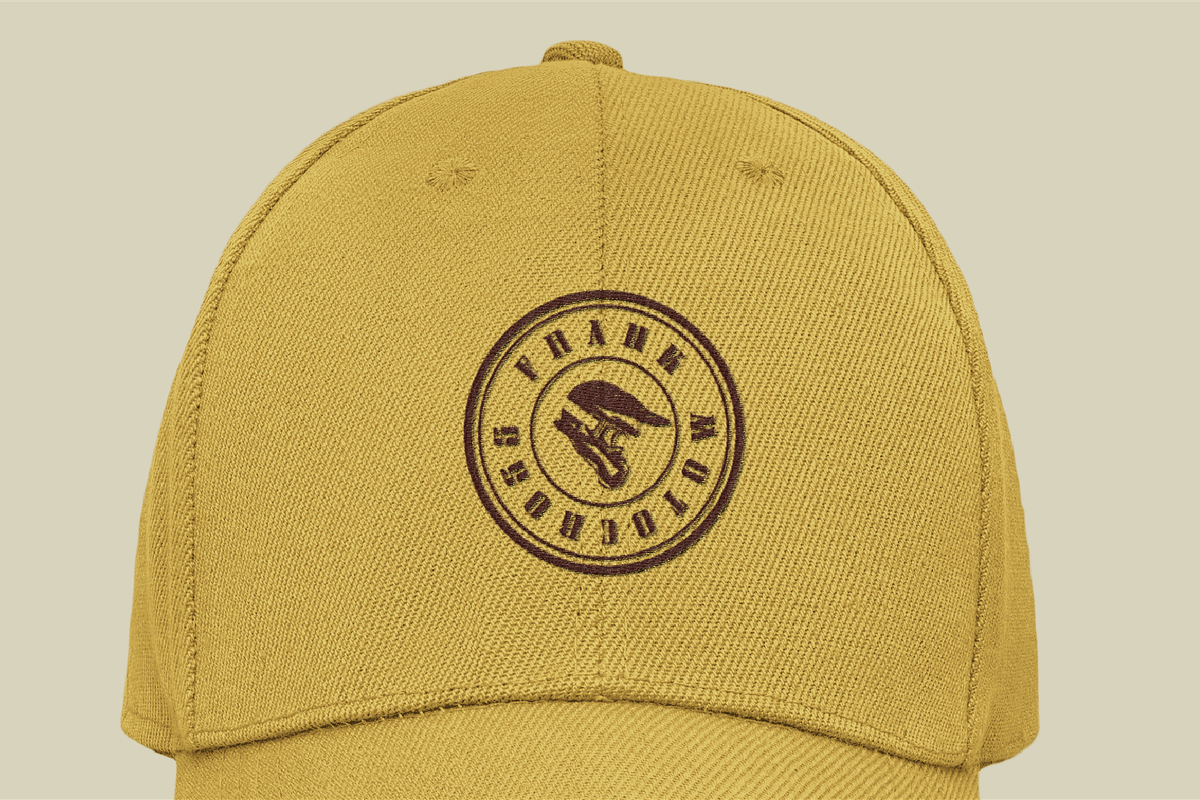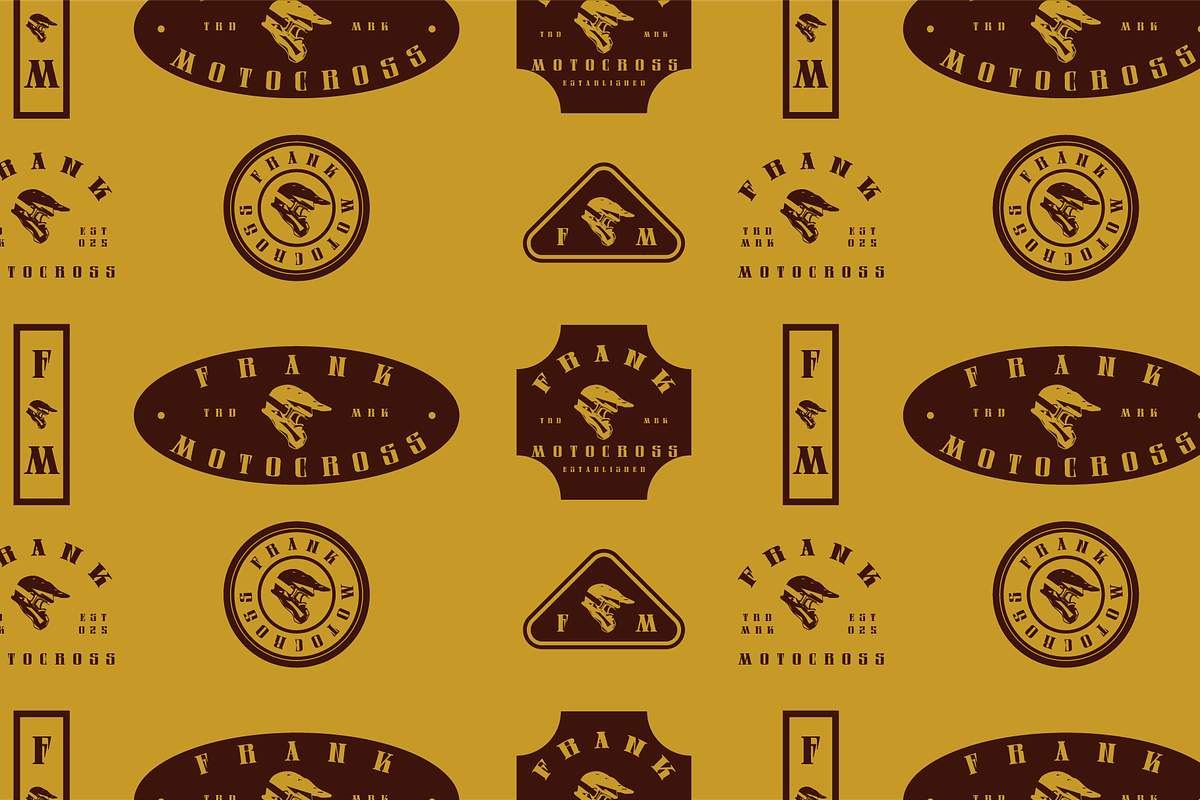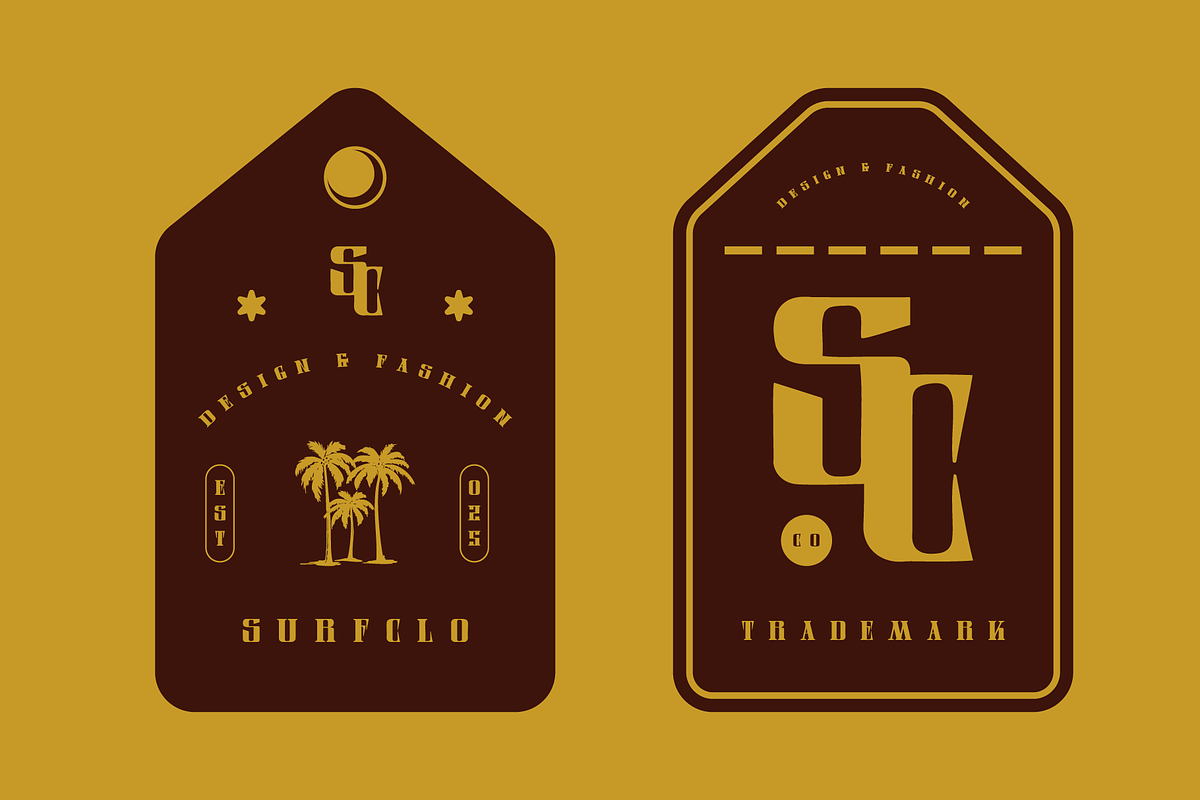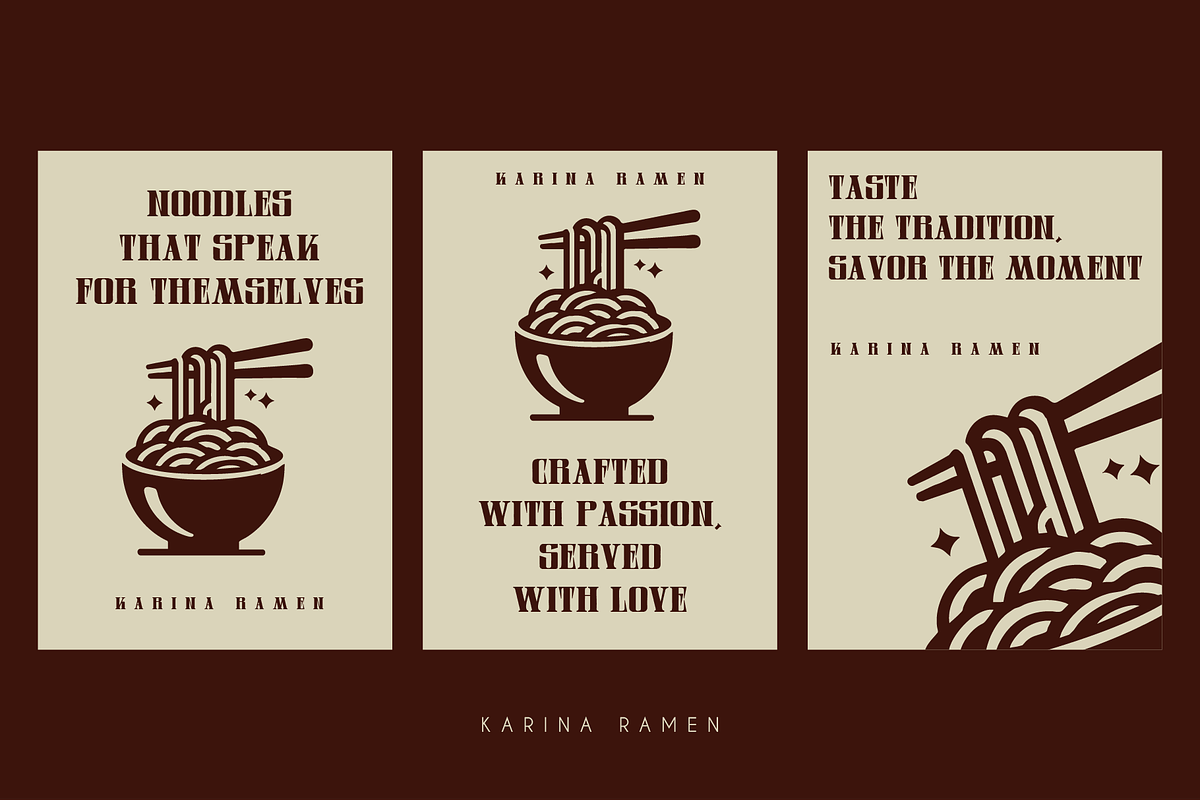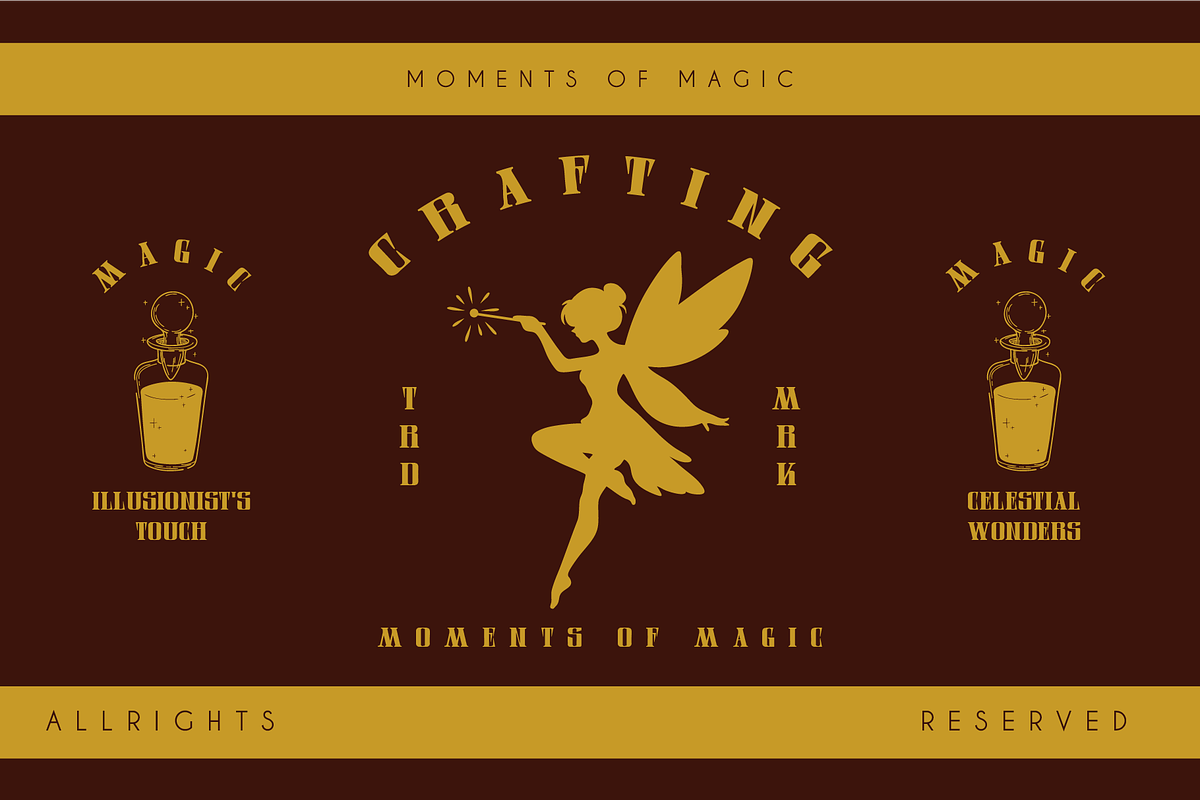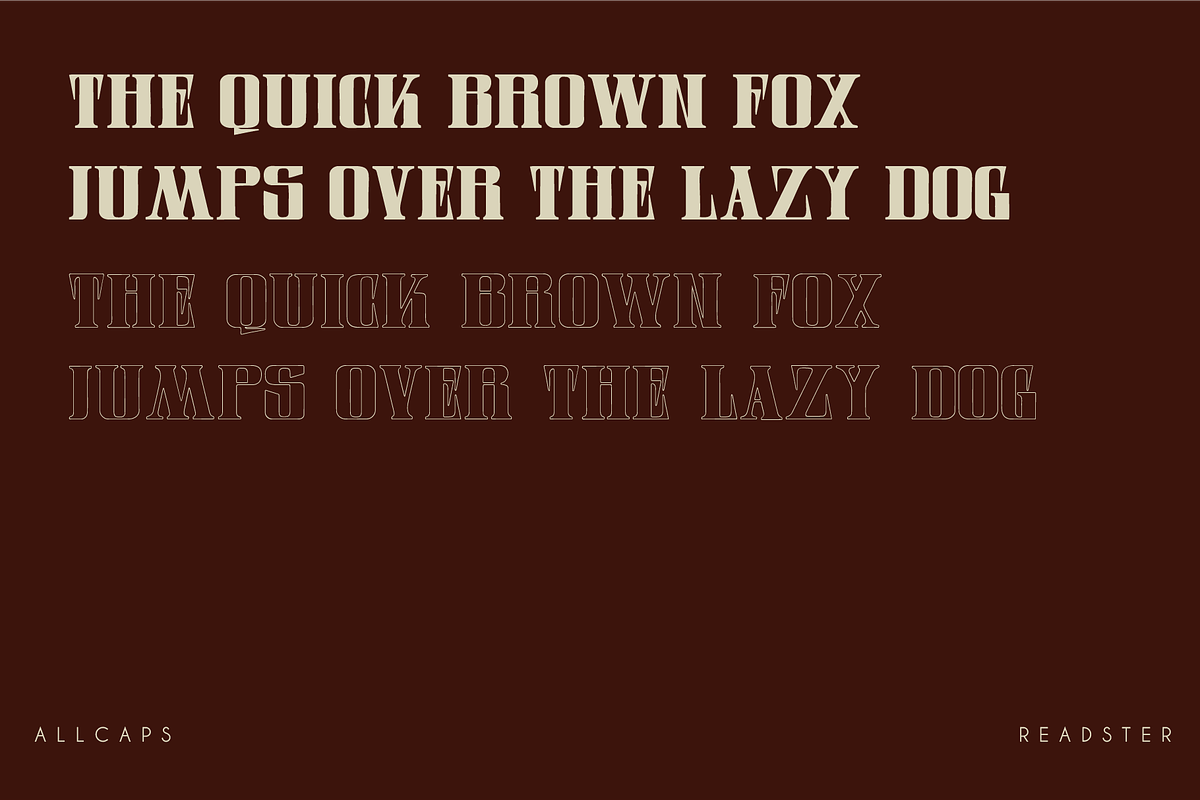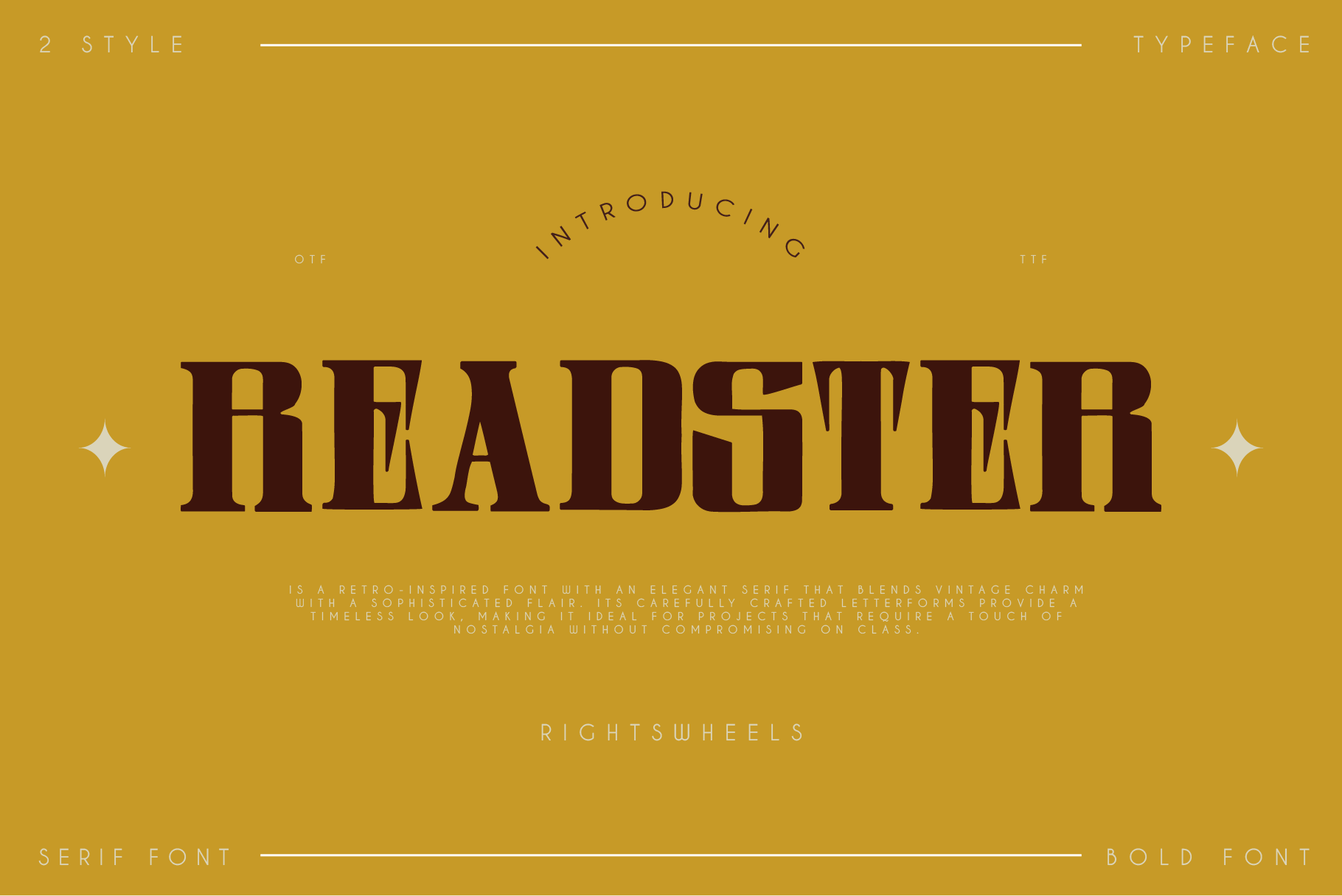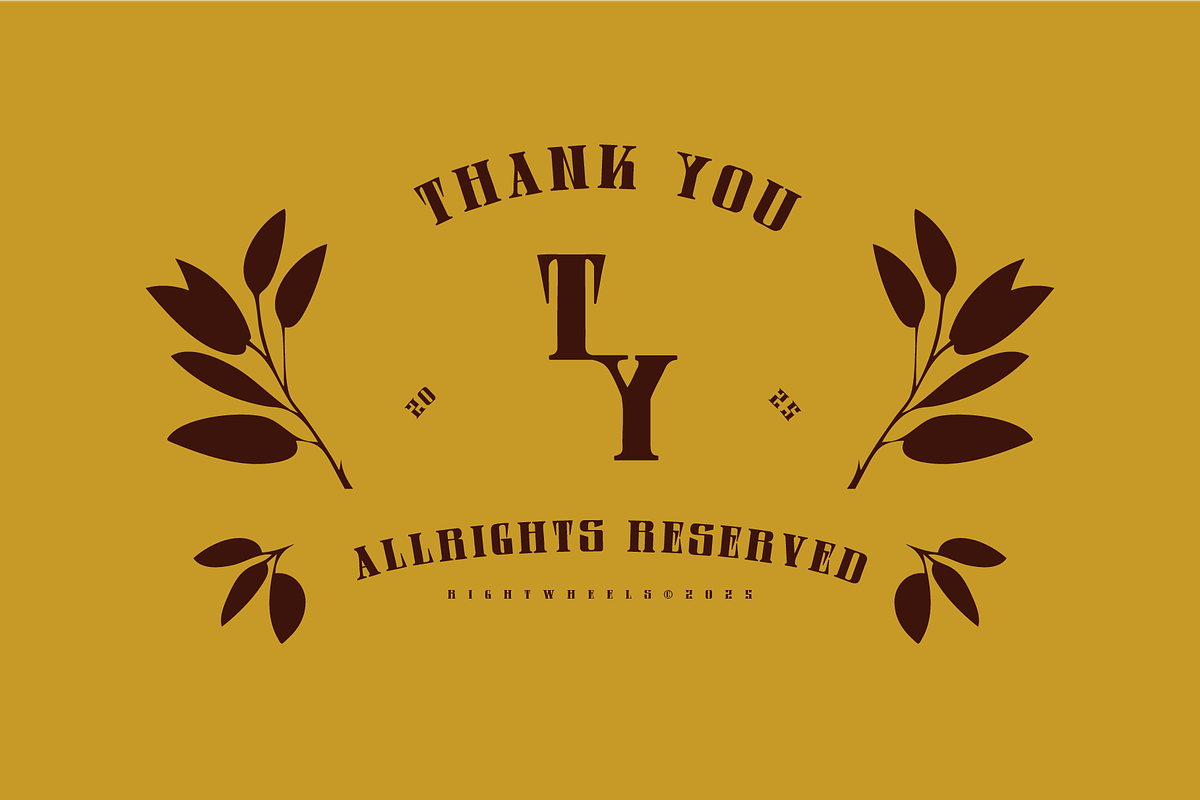
READSTER - Vintage Serif Font
Readster is a retro-inspired font with an elegant serif that blends vintage charm with a sophisticated flair. Its carefully crafted letterforms provide a timeless look, making it ideal for projects that require a touch of nostalgia without compromising on class.